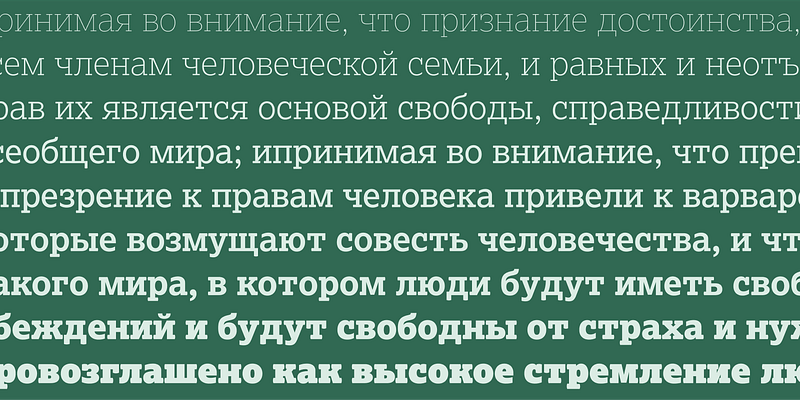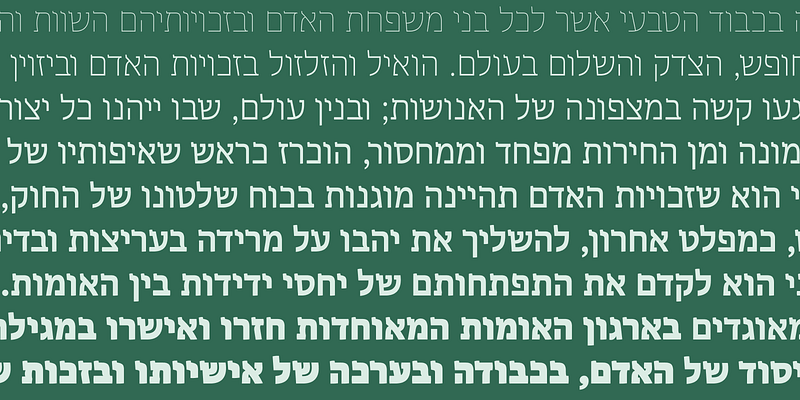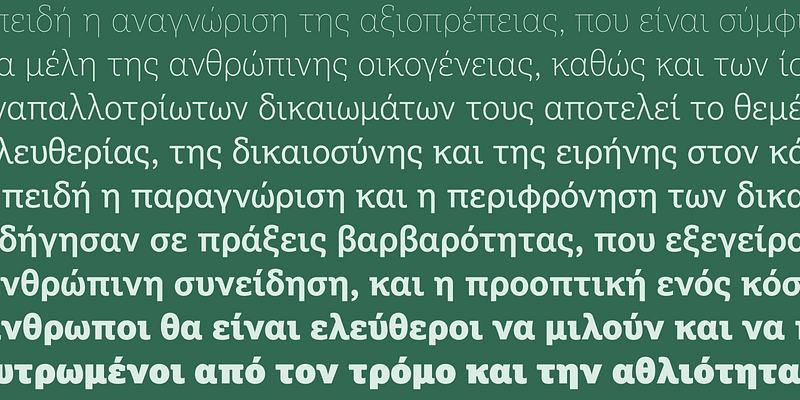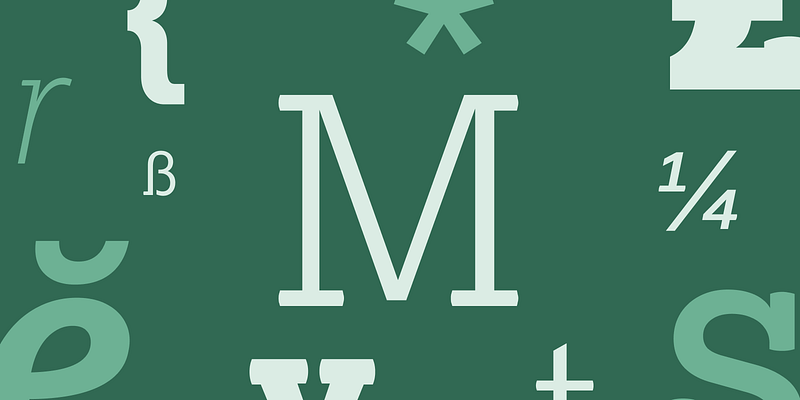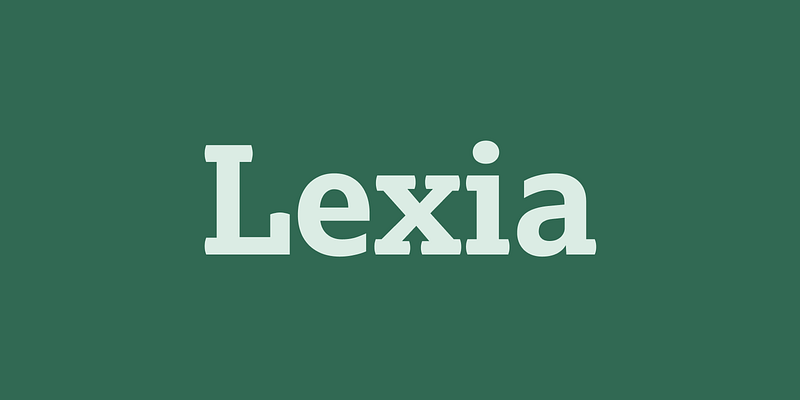
Lexia is a humanist slab serif design with a wide range of styles and weights. Its traditional proportions give excellent functionality at any size and effortless readability at very small sizes.